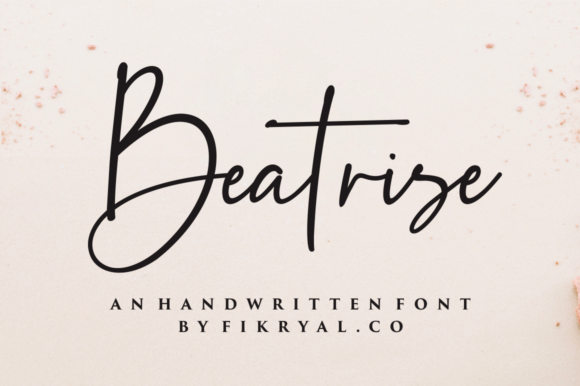
Introduction to Beatrise Font
Beatrise is a modern and cool script with a contemporary feel.
Get inspired by its elegant charm .
Key Features of Beatrise Font